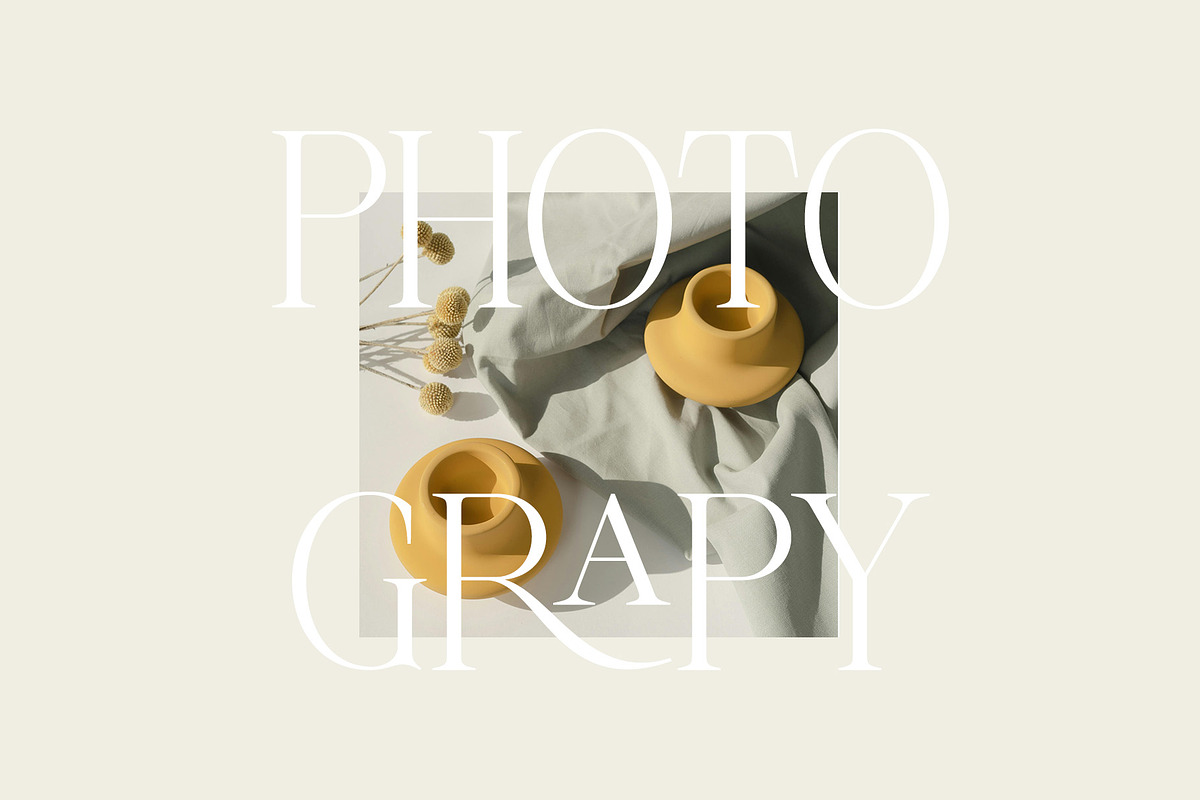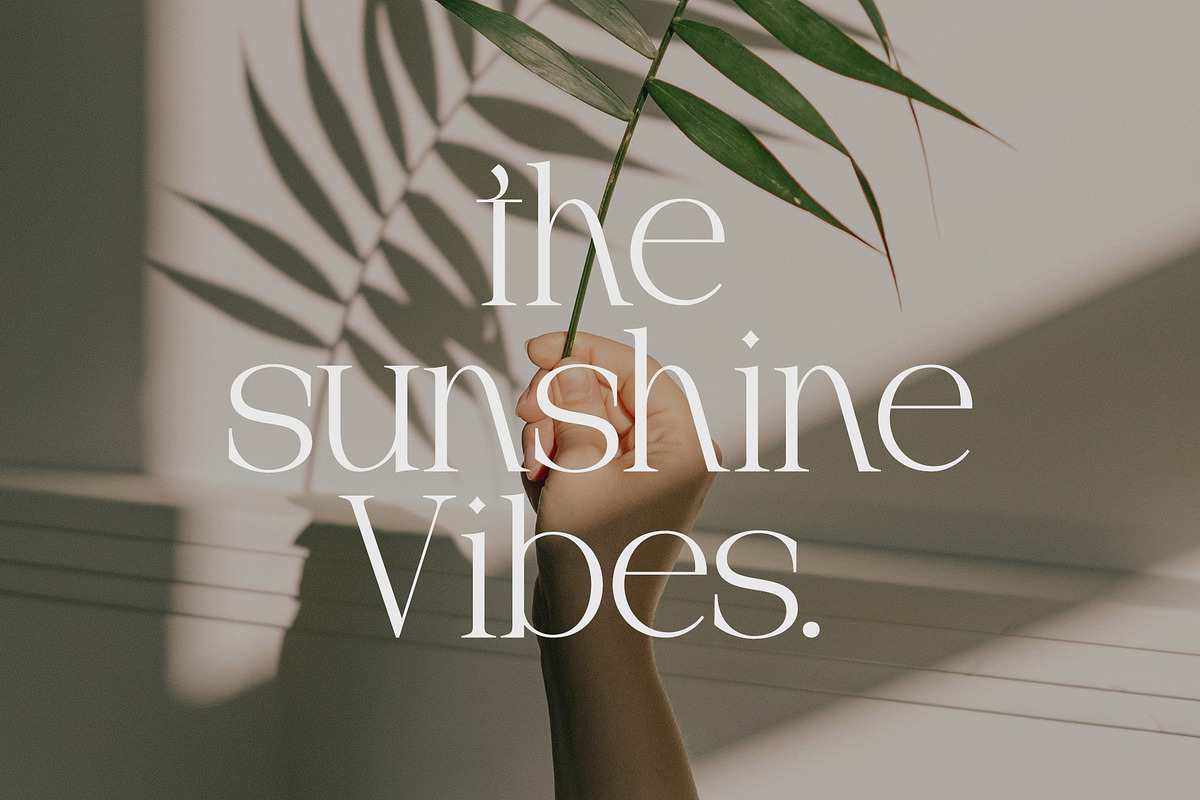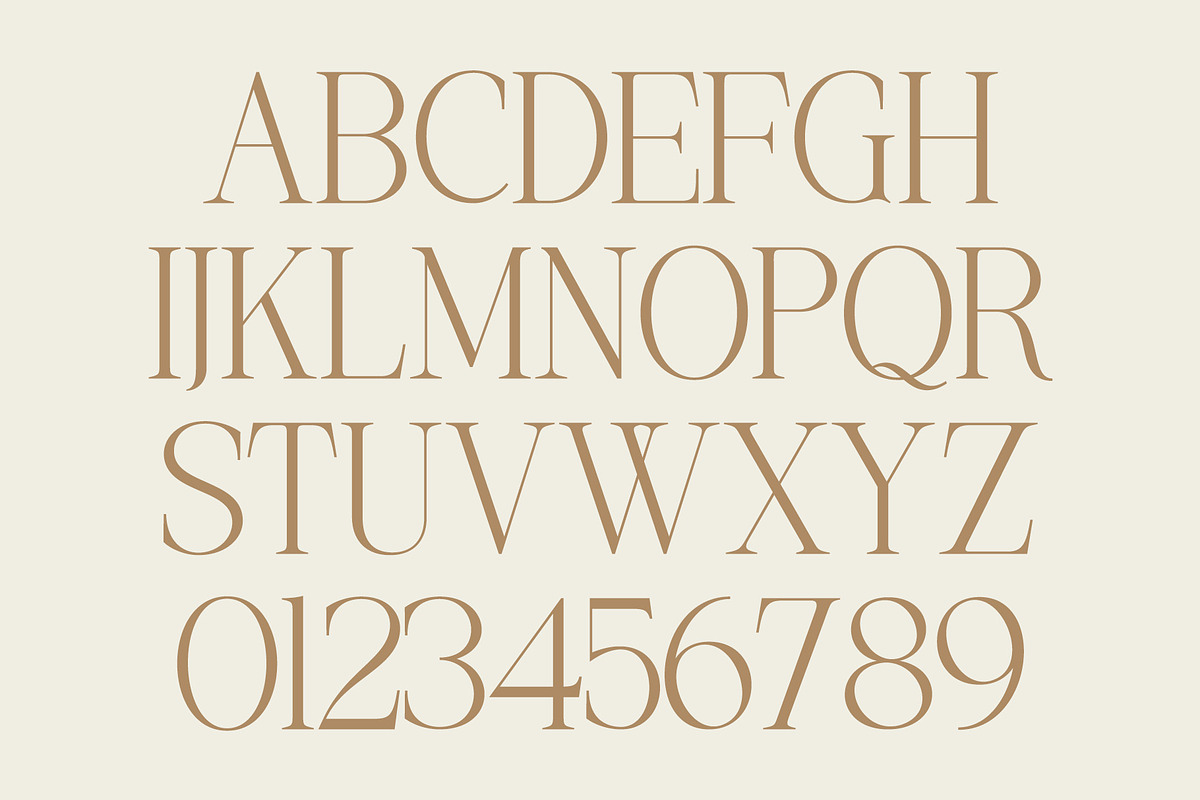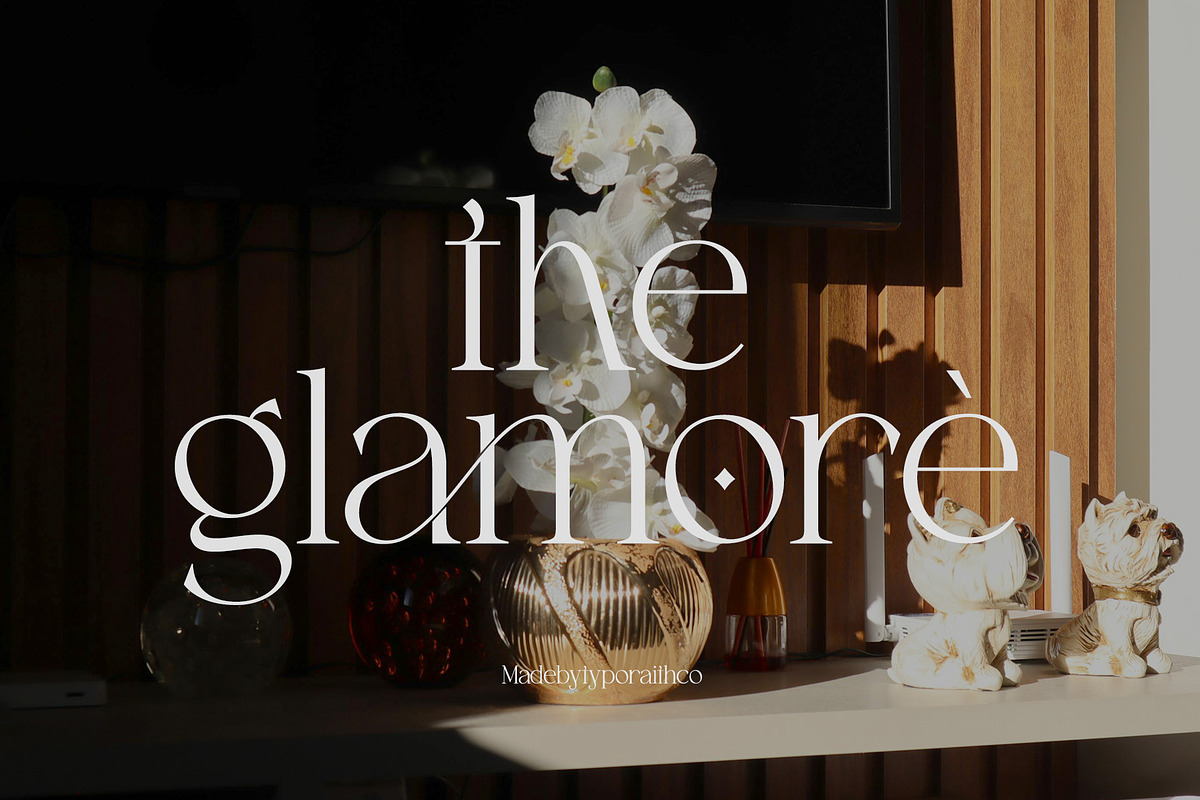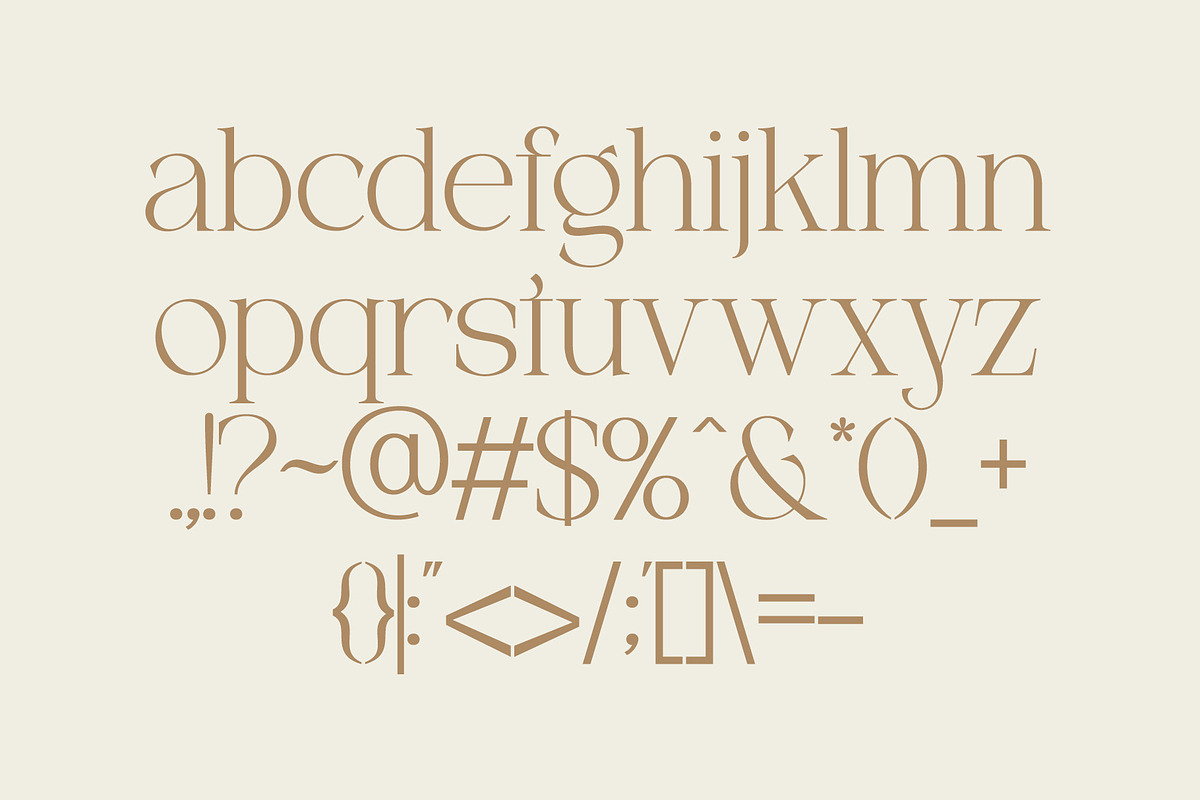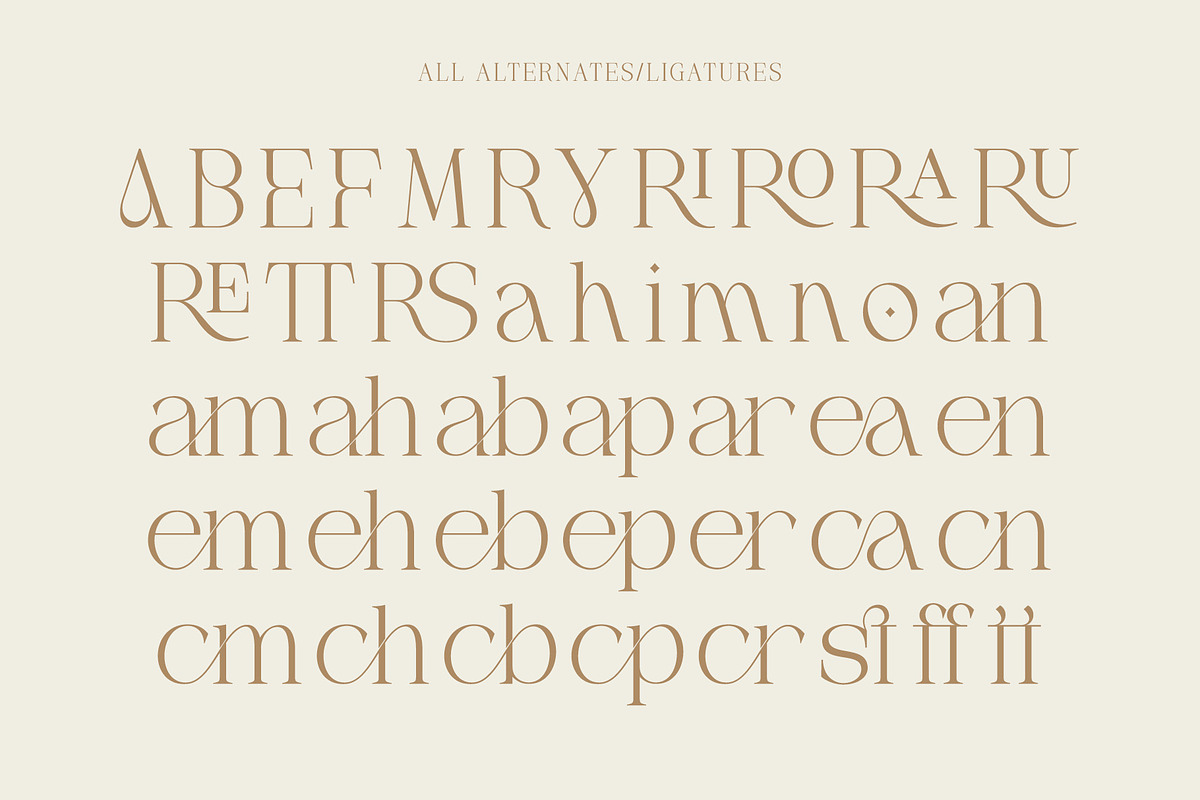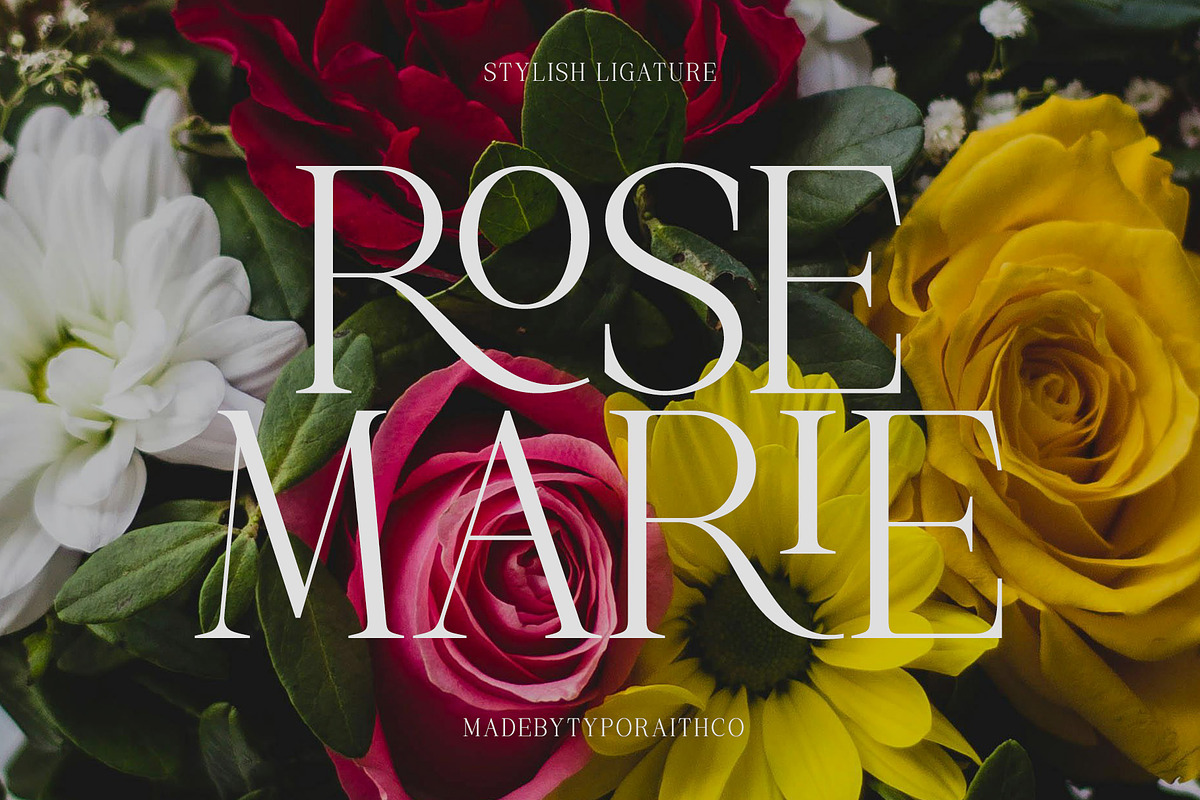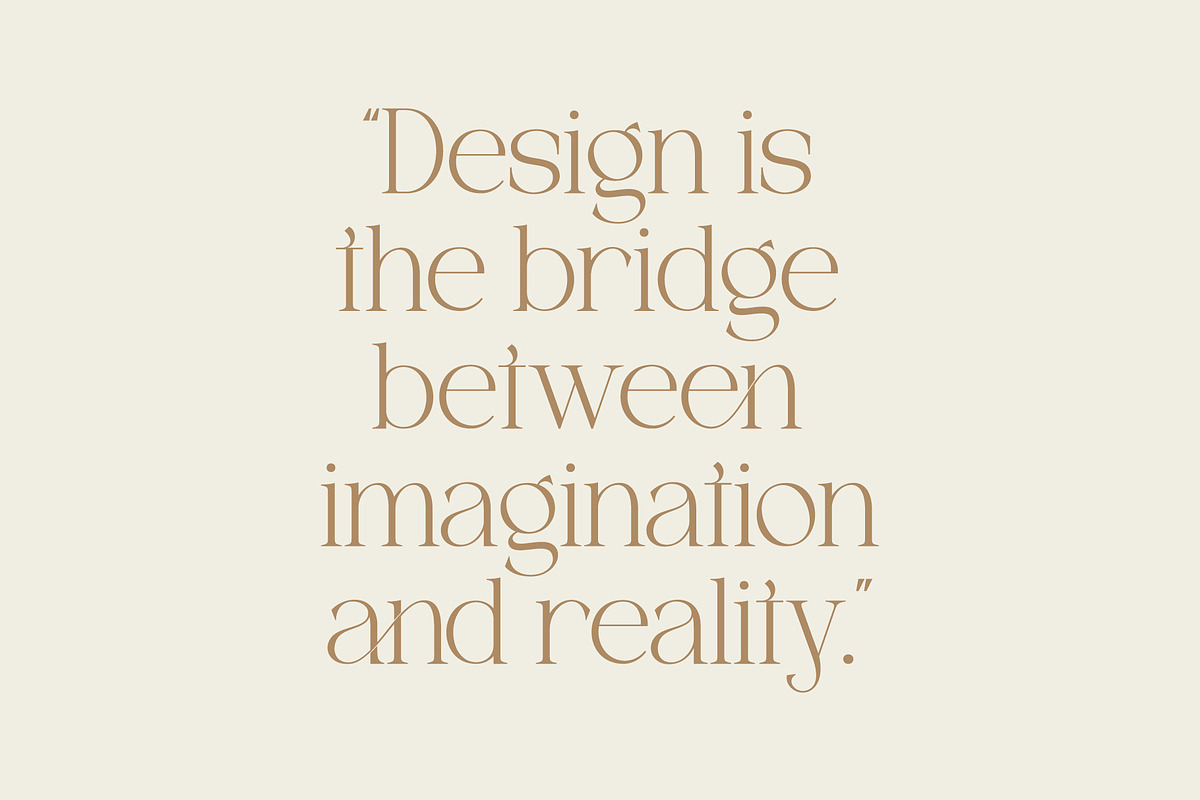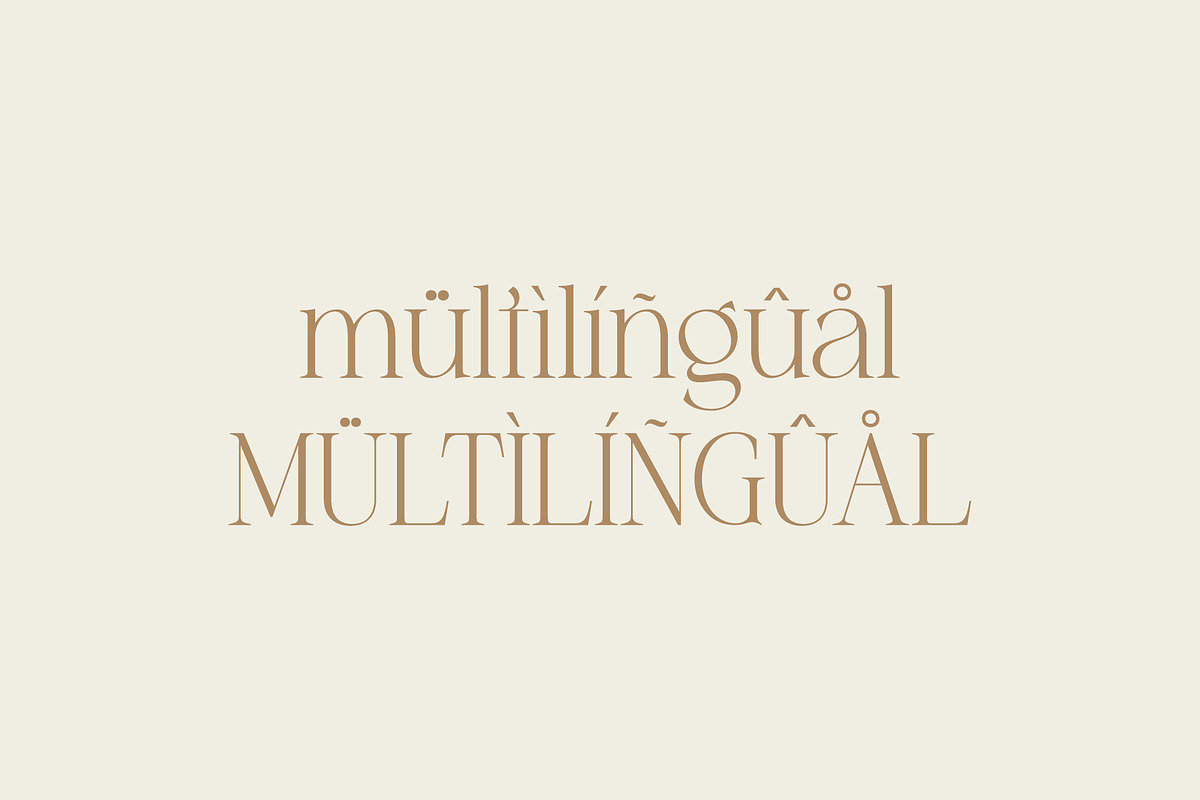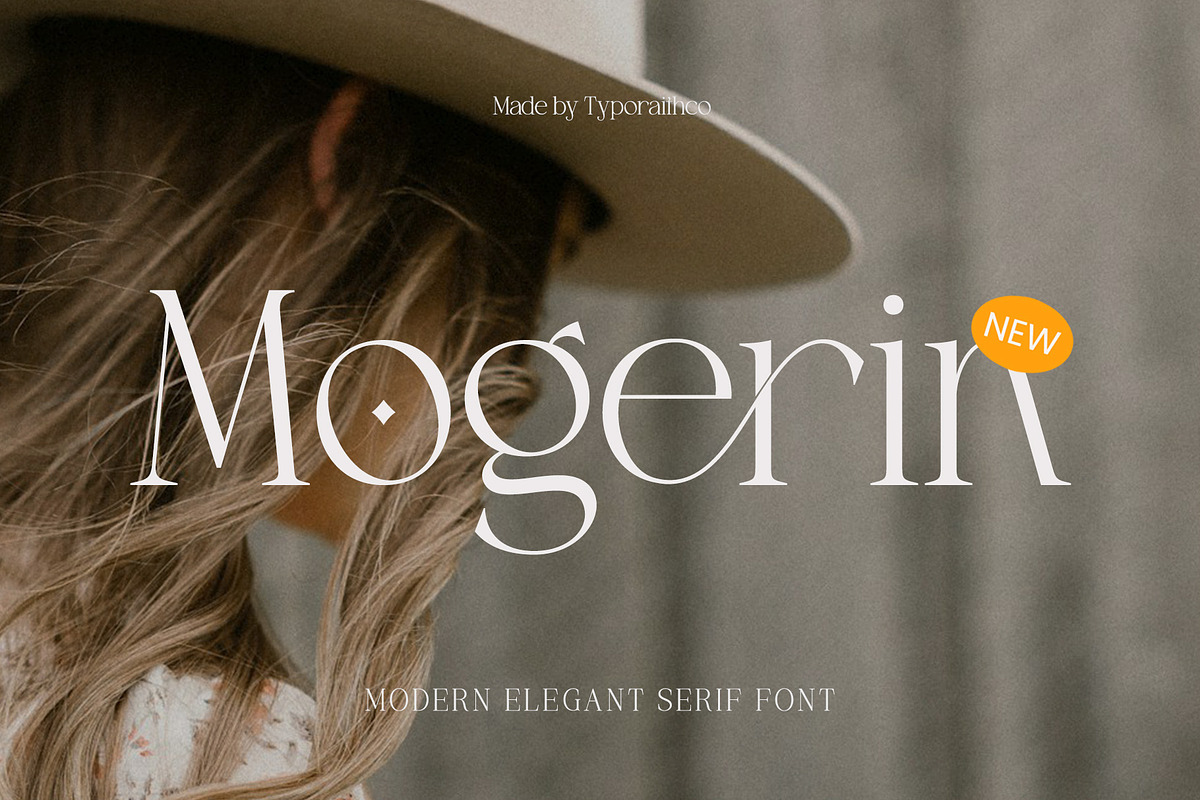
Mogerin | Modern Display Serif
Mogerin is a modern ligature serif font with elegant contrast. Perfect for headlines, logos, posters, and branding. Clean, stylish, and made to stand out.
Uppercase & lowercase
Ligatures & alternates
Punctuation & symbols